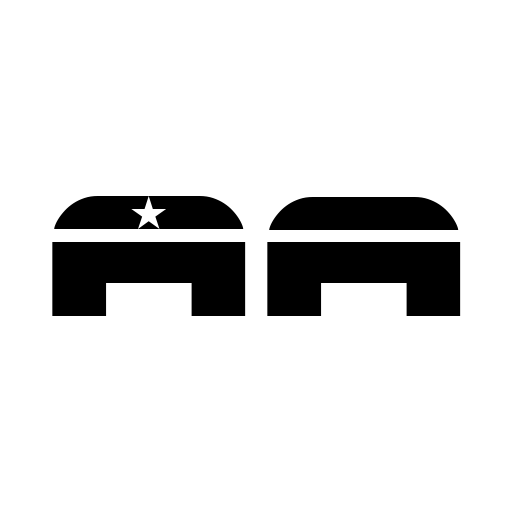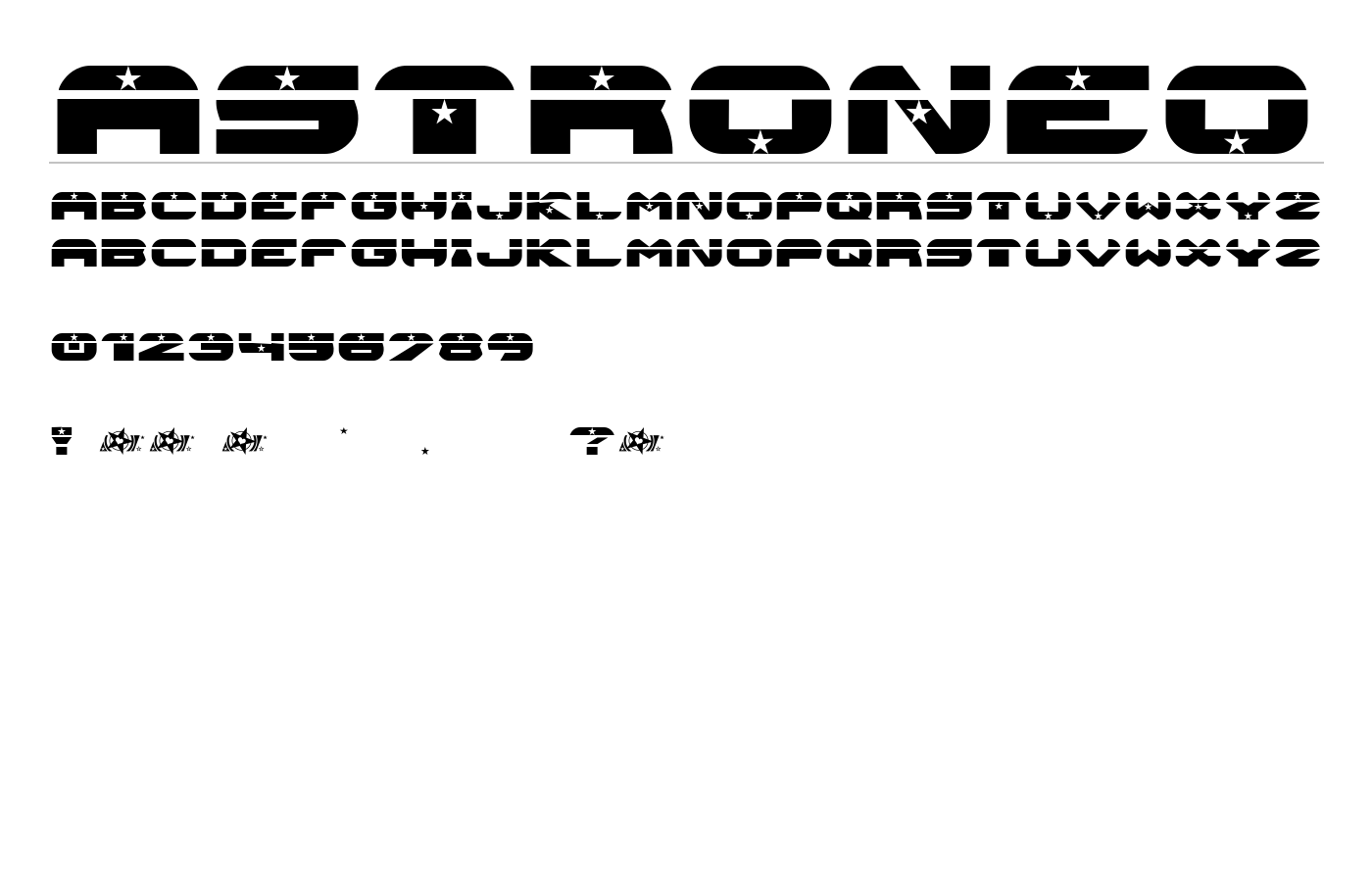
Astroneo is a bold, futuristic sans serif font with a strong geometric structure and clean, sharp edges. Its wide, blocky letterforms combined with subtle star details give it a distinctive space-age, sci-fi vibe, making it perfect for technology, gaming, or modern branding projects where a bold and adventurous look is desired. This font works especially well in headlines, logos, and posters that need to convey innovation and excitement.
ASTRONEO Font
About ASTRONEO Font
| Font family | ASTRONEO Font |
| Designer | Cheikhna Diouf |